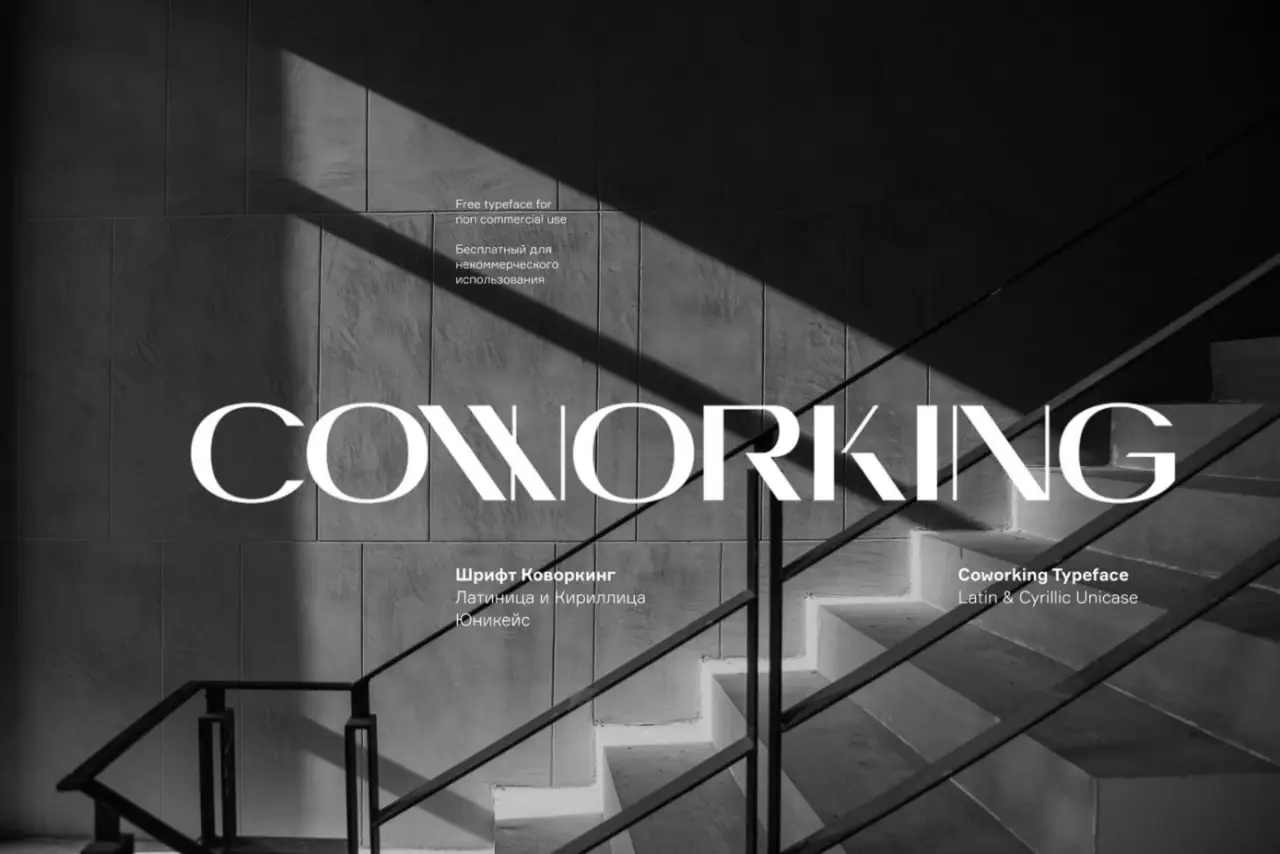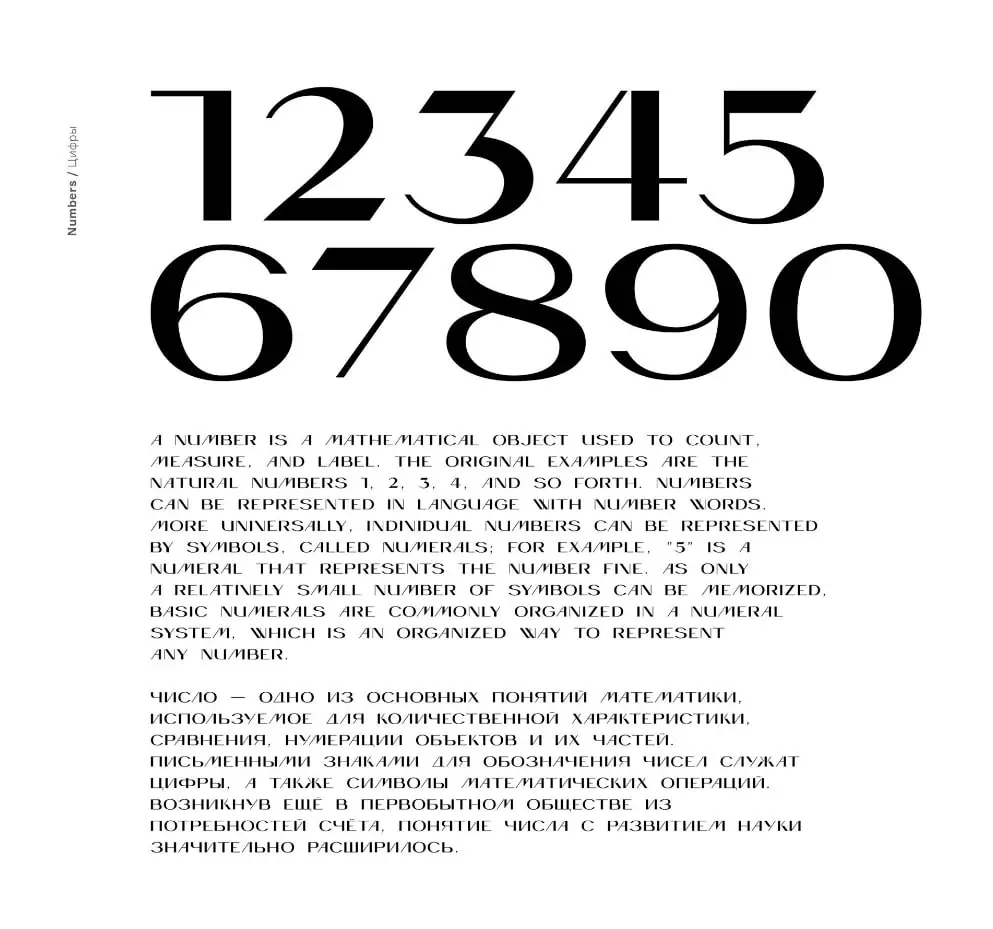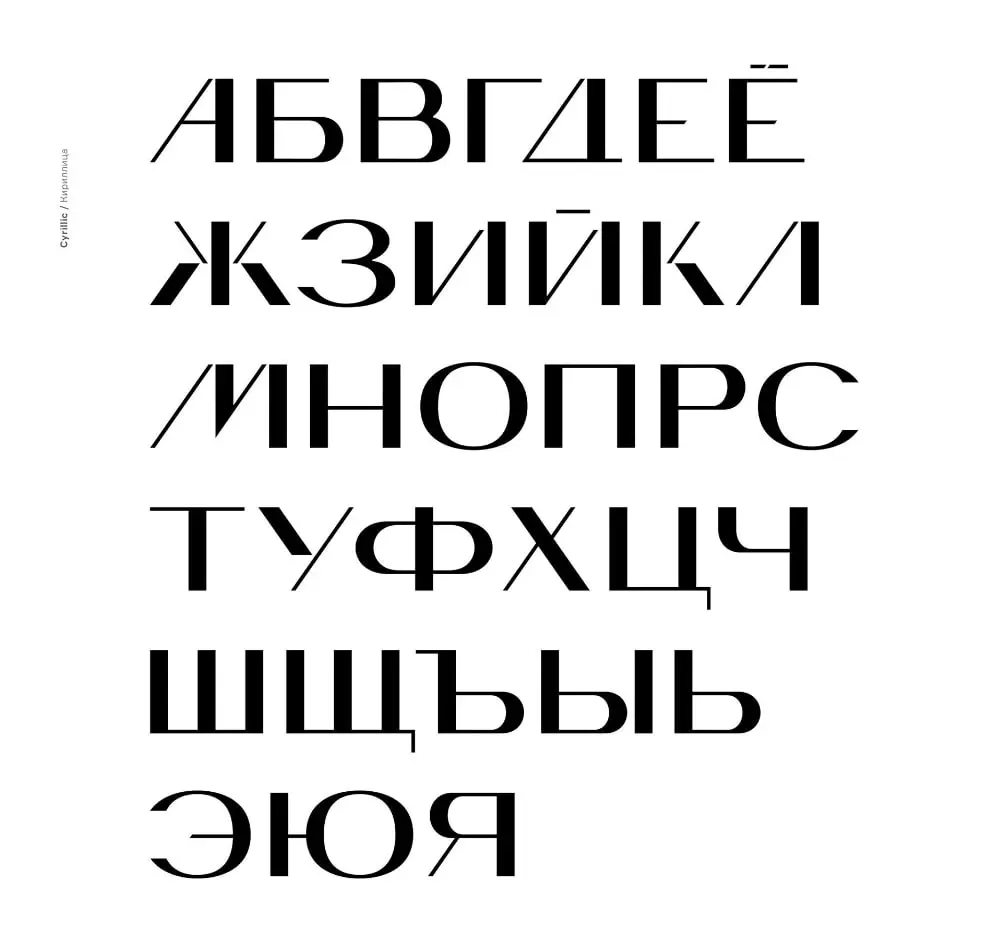
Coworking Typeface
The Coworking Typeface is a modern and versatile font designed to bring a touch of professionalism to your projects. With its clean lines and contemporary aesthetic, this typeface is perfect for a variety of applications, including branding, logos, web design, and print materials.
• Weights: Light, Regular, Medium, Bold
• Ideal for creating eye-catching logos and branding materials.
• Use in digital and print media for a cohesive look.
• Combine different weights for visual hierarchy in your designs.